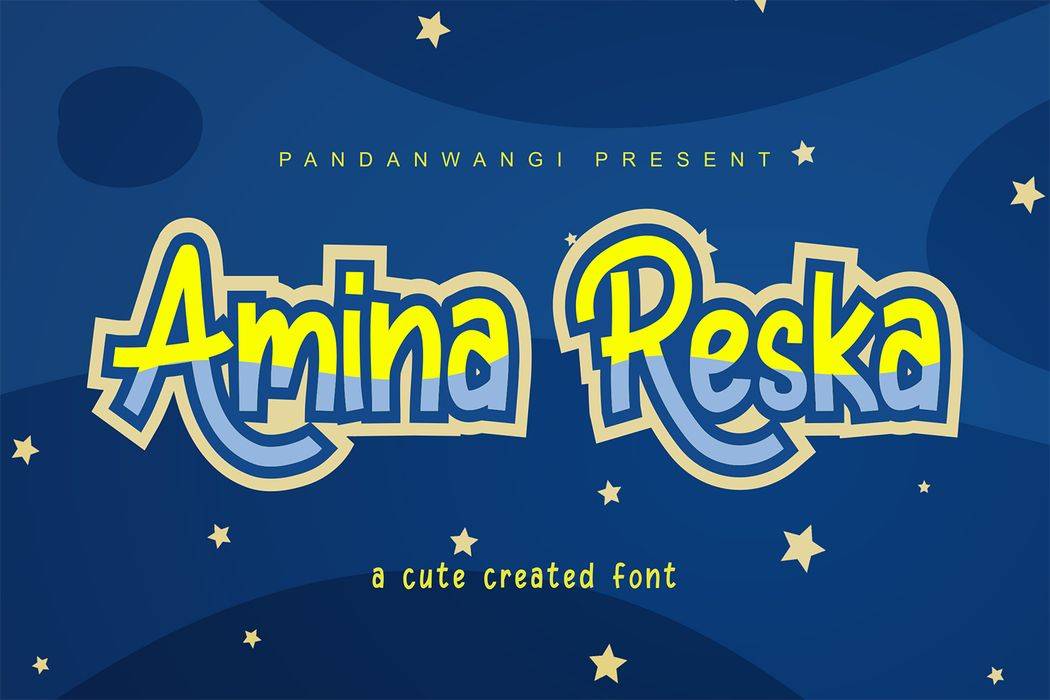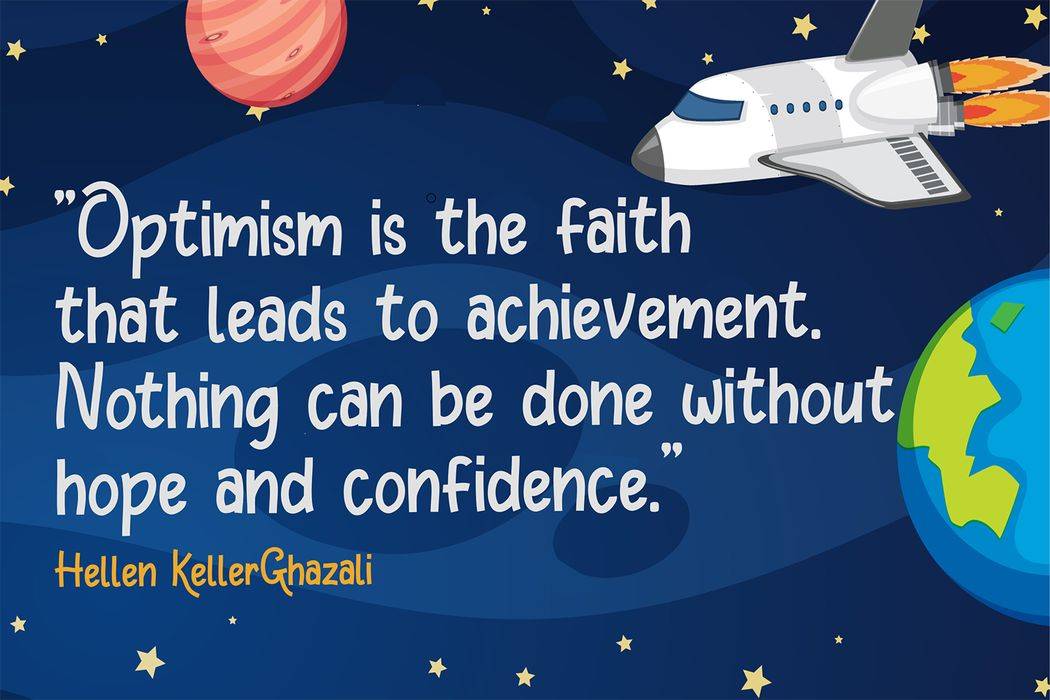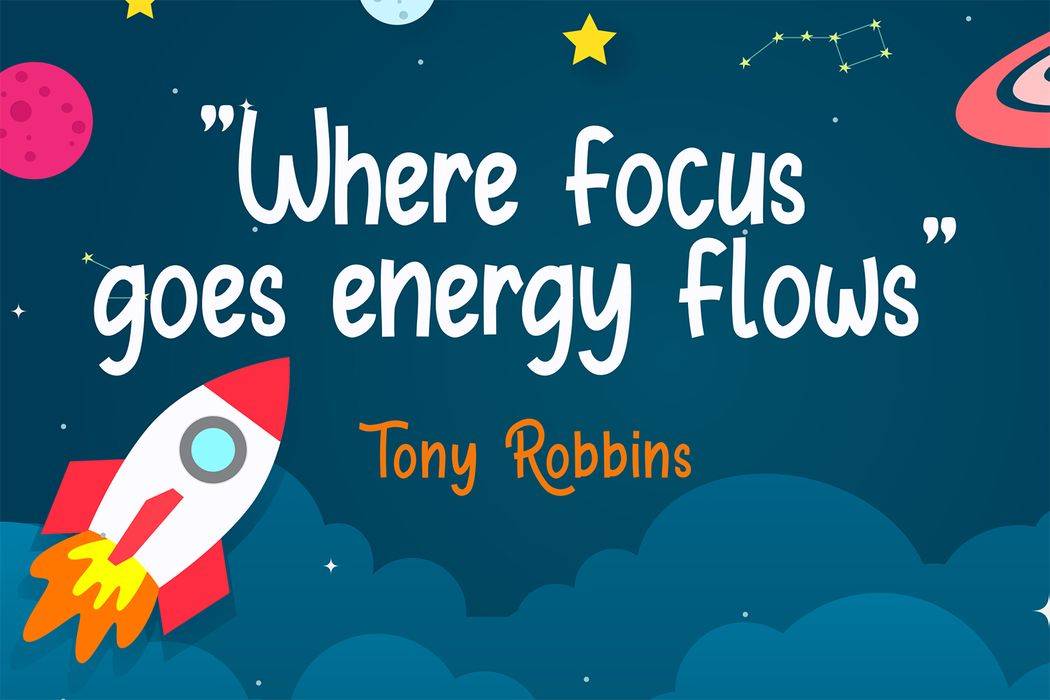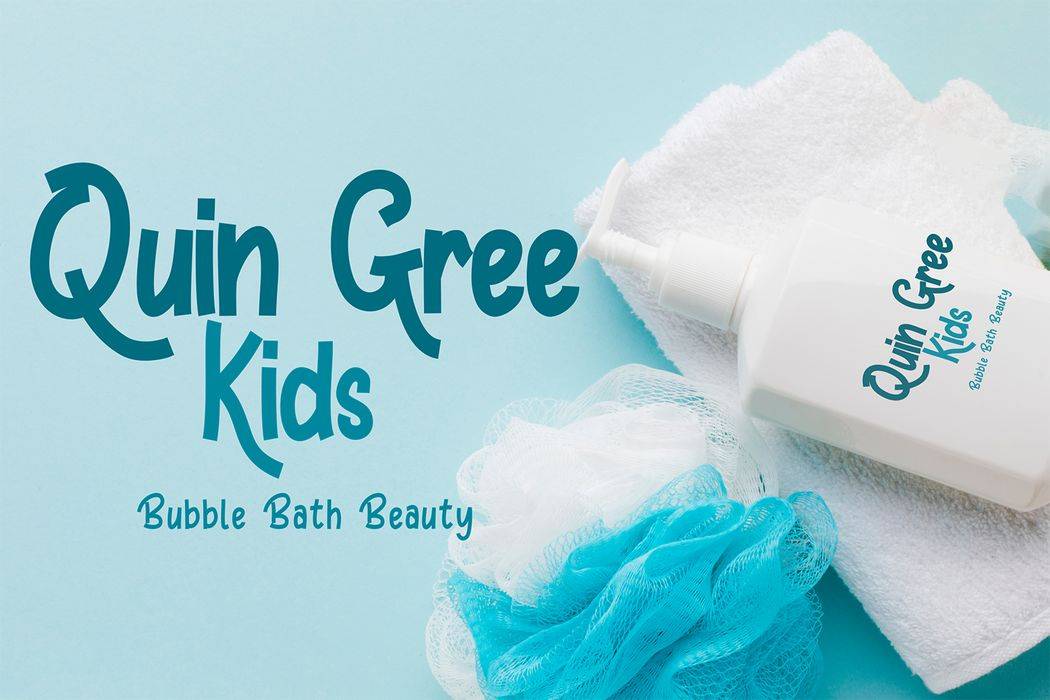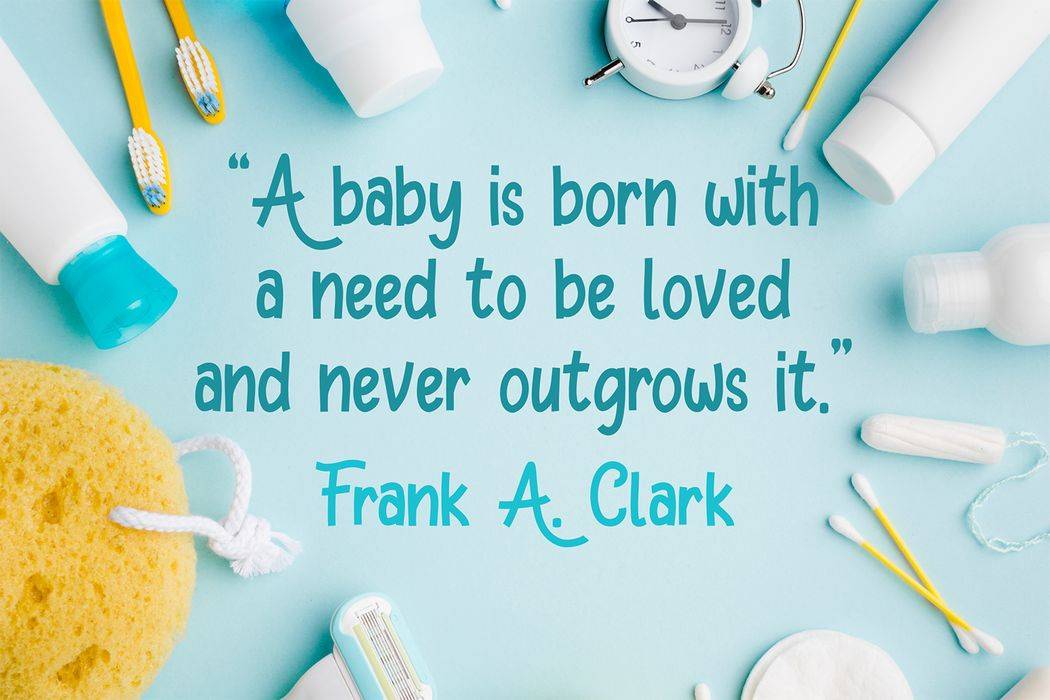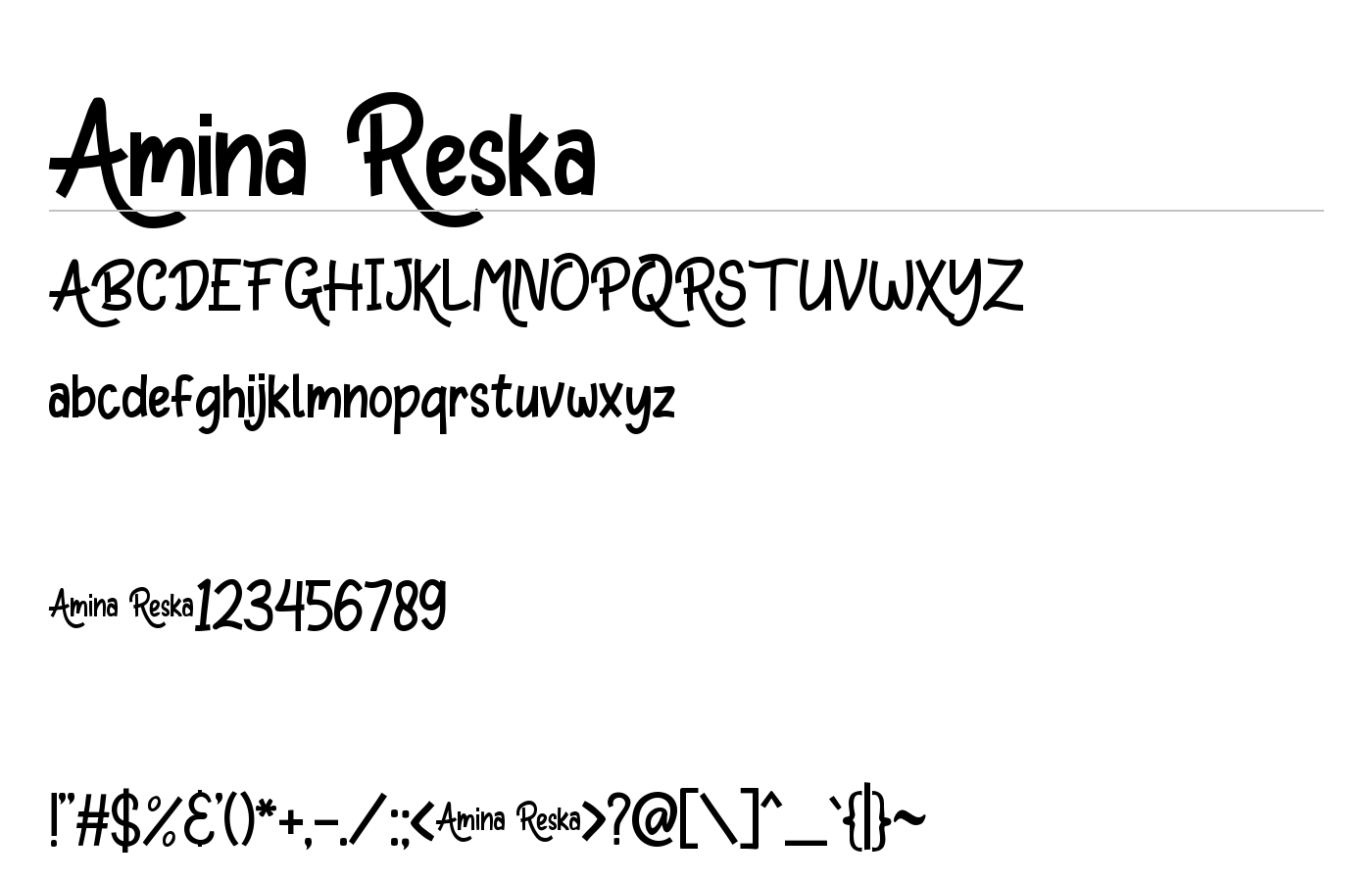
Amina Reska is a playful and informal handwritten font with a lively and whimsical character. Its medium weight and uneven letterforms create a casual, friendly impression perfect for creative projects, children’s books, or brands seeking a lighthearted and approachable vibe. The font’s unique uppercase flourishes and quirky details add personality, making it well-suited for headlines, logos, and designs that benefit from a personal, artistic touch.
Amina Reska Font
About Amina Reska Font
| Font family | Amina Reska Font |
| Designer | Pandanwangi 2020 |